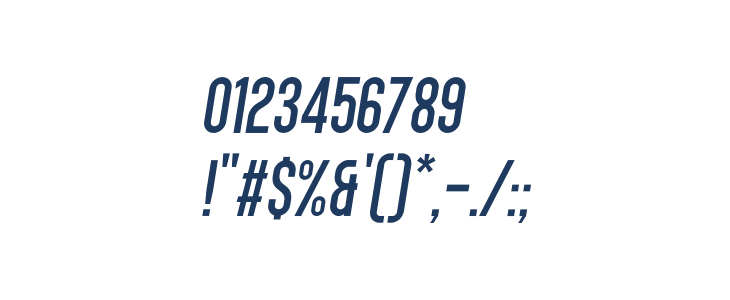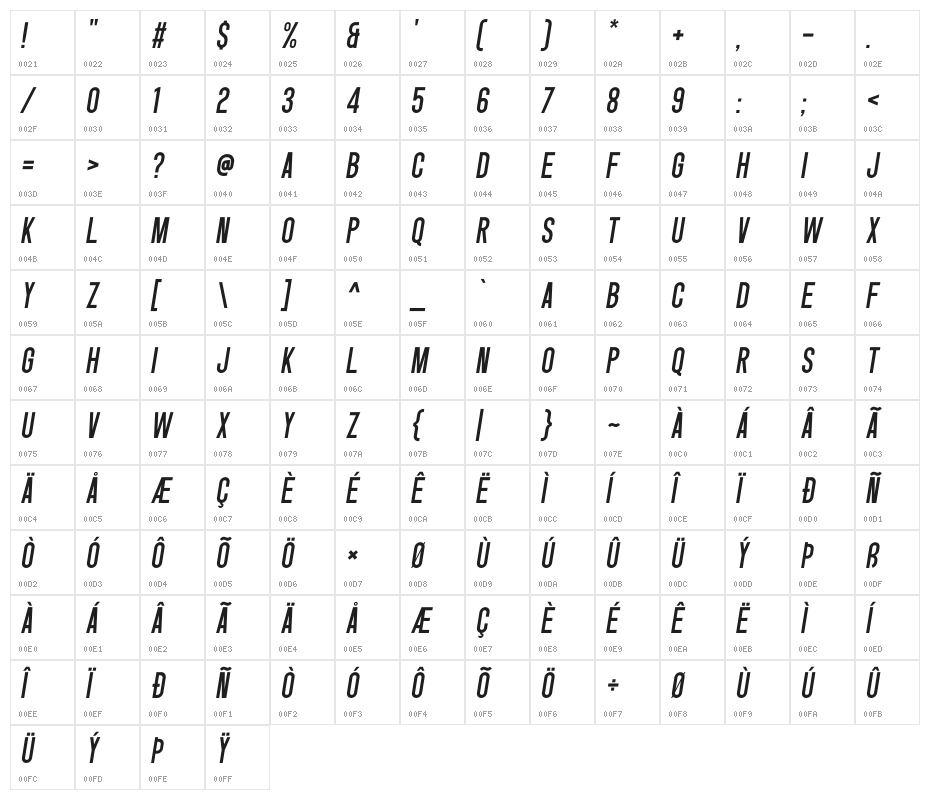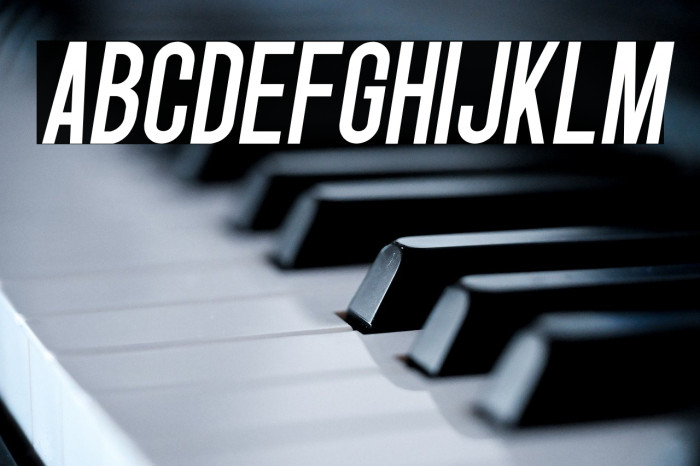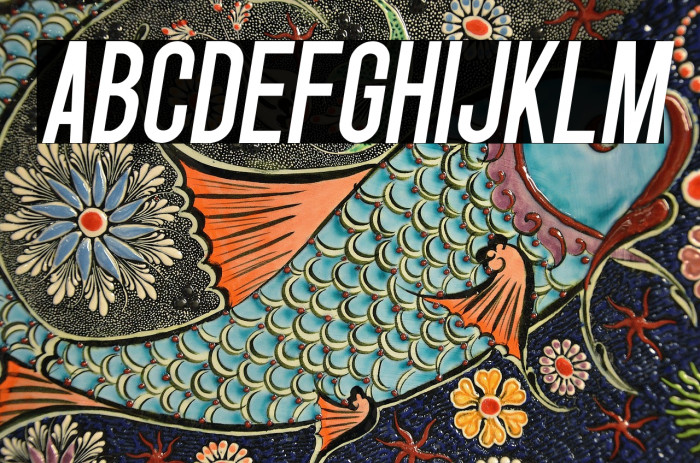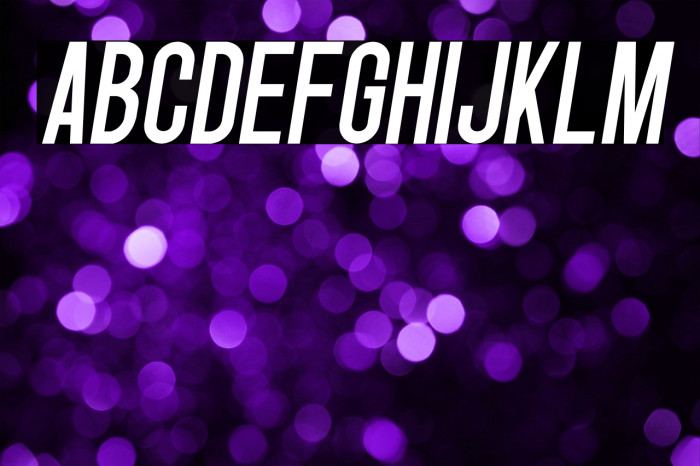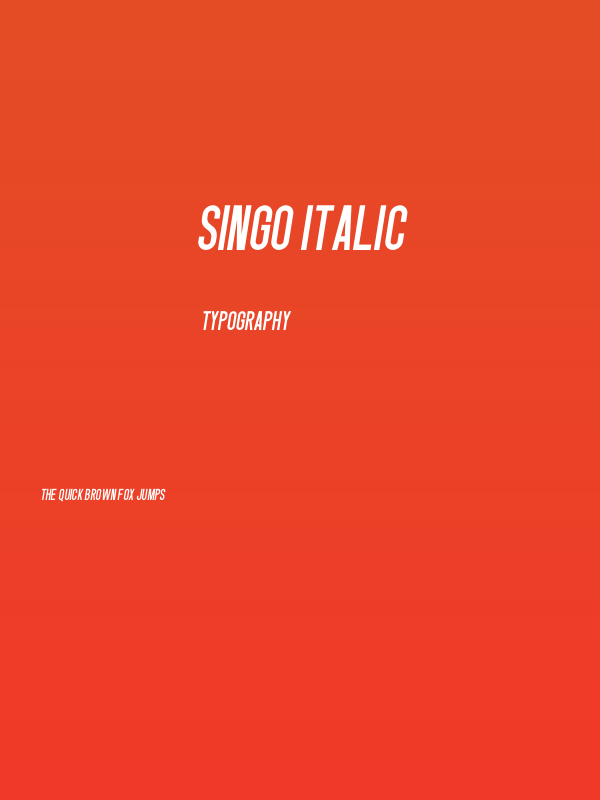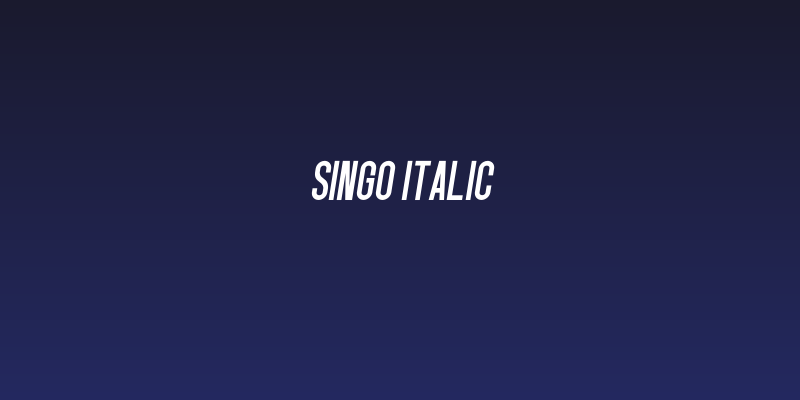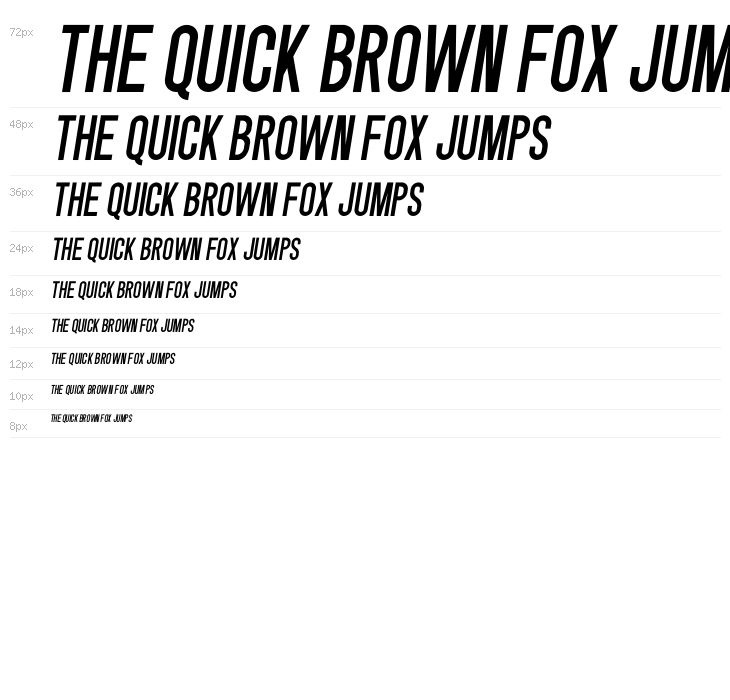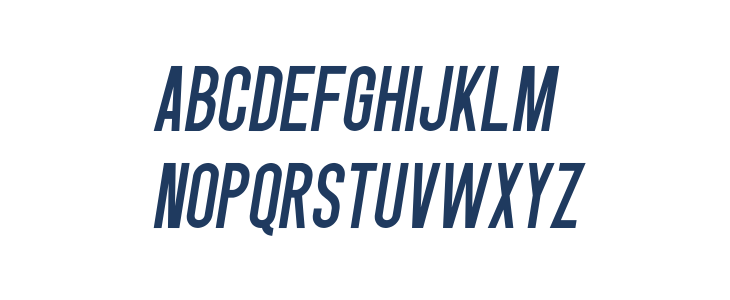
Singo Italic Font
Singo Italic Description
This font features a bold and dynamic italic style with a strong slant, giving it a sense of motion and energy. The characters are tall and narrow, contributing to a condensed appearance that maximizes space efficiency. The strokes are consistent in weight, providing a uniform look across all characters. The uppercase and lowercase letters maintain a cohesive style, with clean lines and sharp angles. The numerals and special characters are designed to match the overall aesthetic, ensuring versatility in various applications.
| Proposed Projects | Ideal for sports branding, dynamic posters, modern advertising, and any project requiring a bold and energetic typeface. |